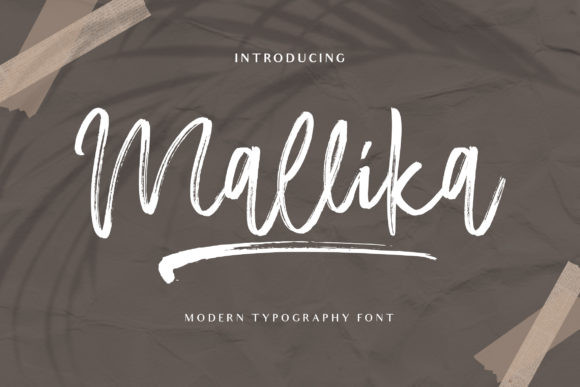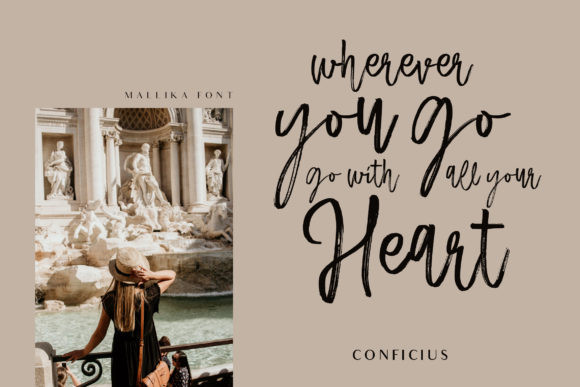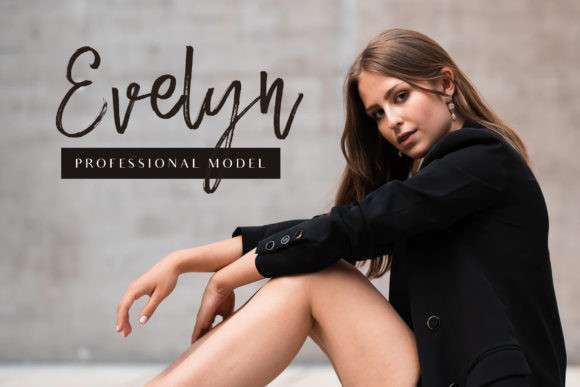
Mallika Font
Mallika is a sweet and friendly handwritten dry brush font. Its natural and unique style makes it incredibly fitting to a large pool of designs.